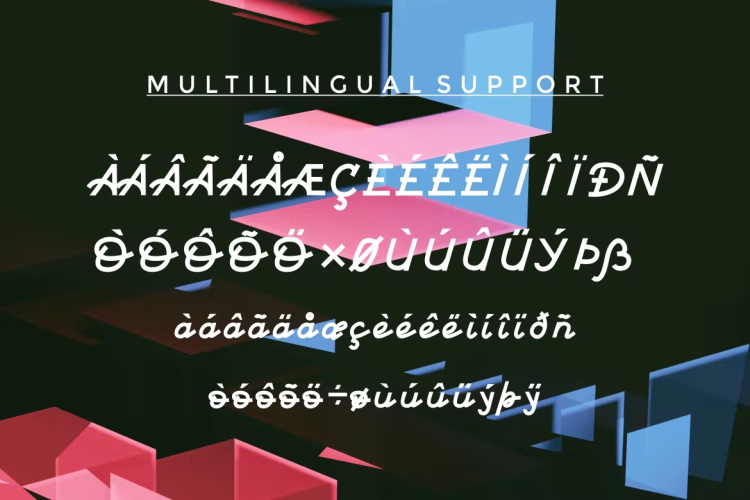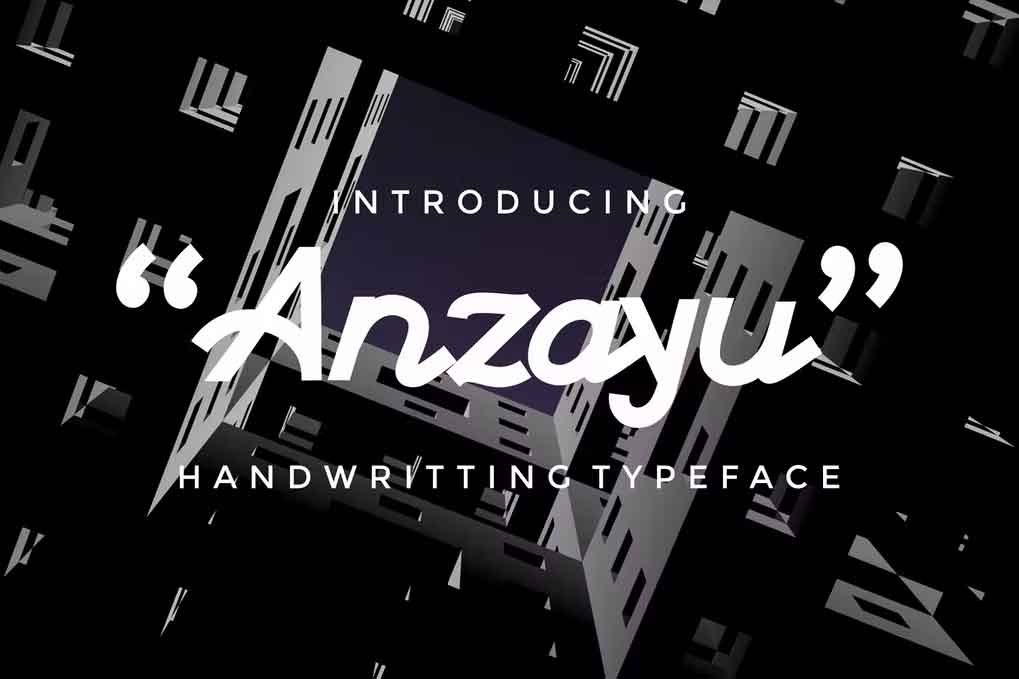
Anzayu Handwritting Font
Anzayu is a Handwritting brush font that we designed with original touch for your needs. This cool font is complete with Uppercase, Lowercase, Numeric & symbols. This very strong and sharp font is perfect for titles, typography, posters, magazines, brochures, packaging, Websites and much more for your design needs, making your designs more cool.
Anzayu Handwritting Font is a Script And Handwritten font that brings a professional and versatile look to your projects. Anzayu is a Handwritting brush font that we designed with original touch for your needs.